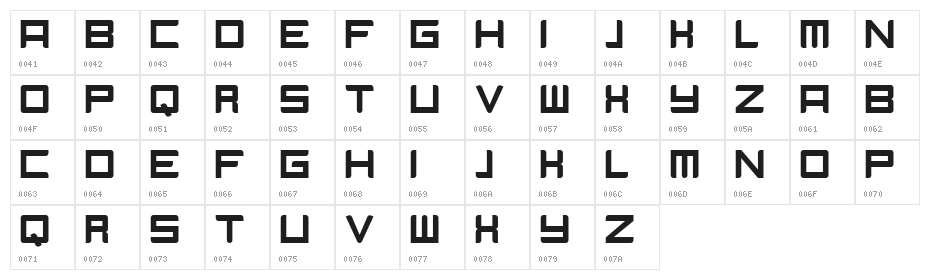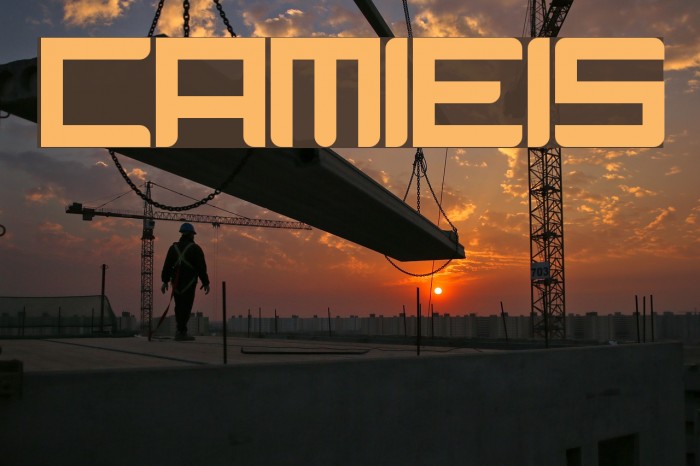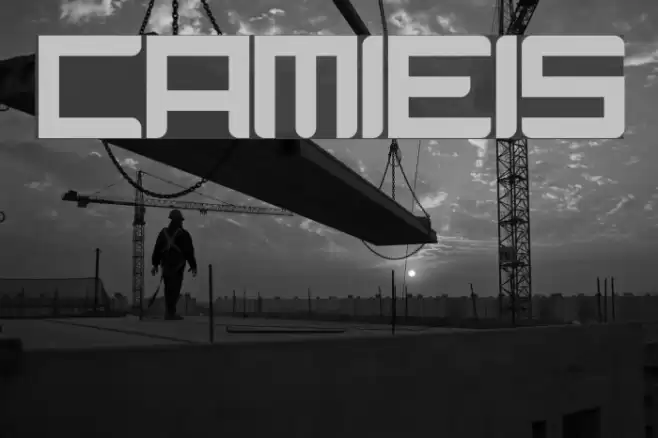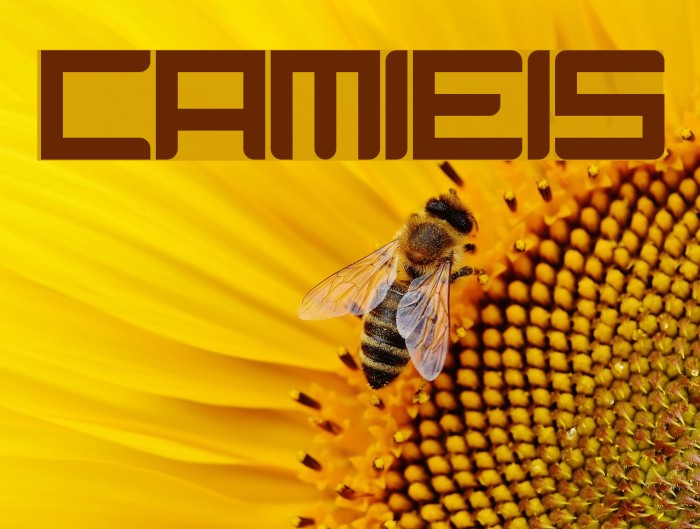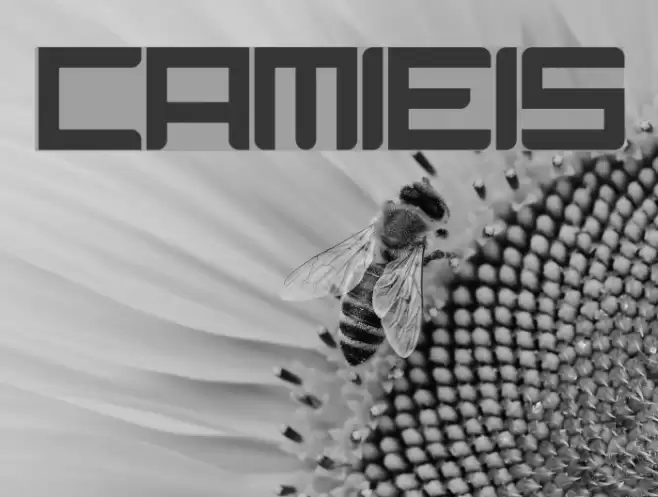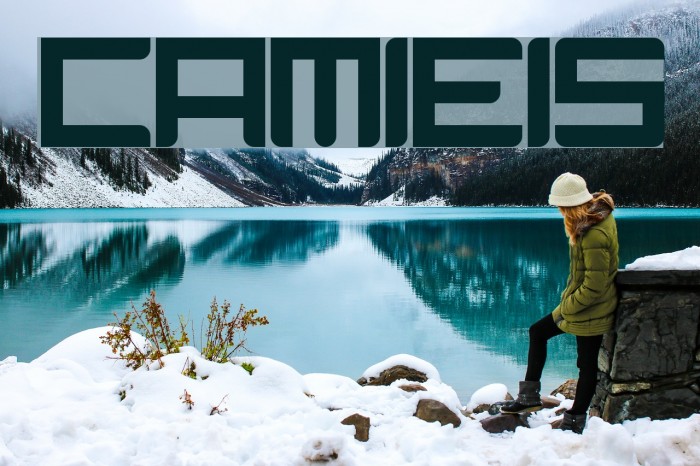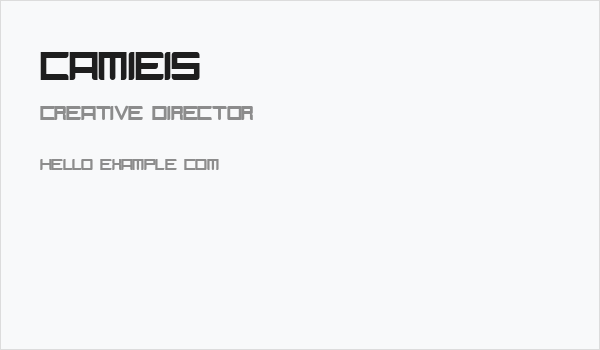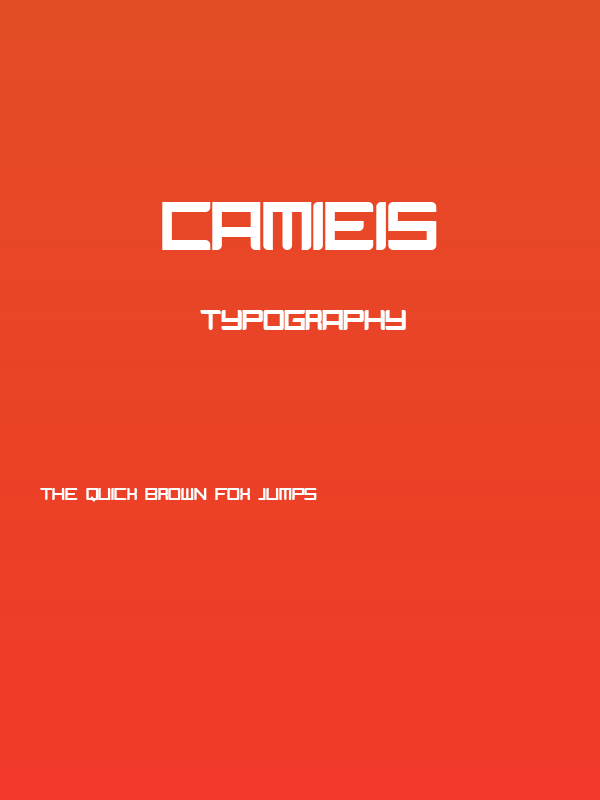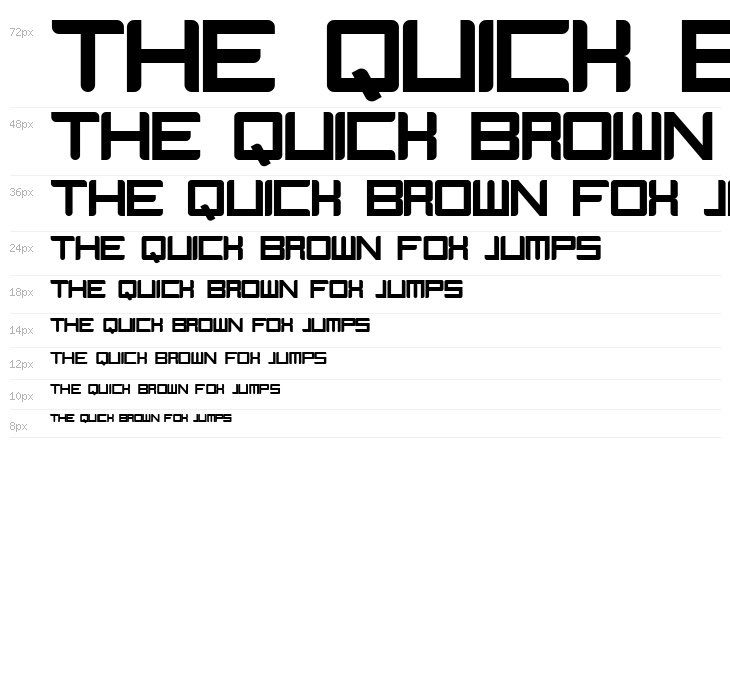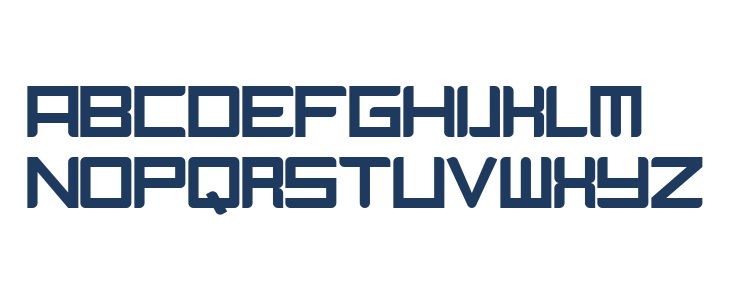
Camieis Font
Camieis Description
This font features a bold, geometric design with a futuristic aesthetic. The characters are constructed with thick, uniform strokes, creating a strong visual impact. The angular shapes and sharp edges give it a modern and technological feel. The uppercase letters are particularly striking, with consistent height and width, contributing to a cohesive look. The font's style is reminiscent of digital or sci-fi themes, making it suitable for projects that require a contemporary and edgy appearance. The spacing between characters is tight, enhancing the compact and solid nature of the typeface. Overall, this font is ideal for making bold statements in design projects.
| Proposed Projects | Ideal for tech-related branding, sci-fi movie posters, video game titles, and modern digital interfaces. |